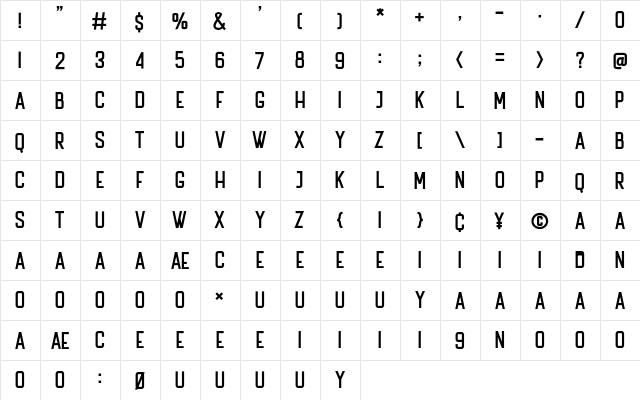
The Bredan Sans Regular
| Foundry | Vultype Cp |
| Designer | Vultype Co |
Design Context for The Bredan Sans Typeface
The Bredan Sans takes a measured approach to typography — its balanced proportions and neutral character make it a reliable workhorse for both digital and print work.